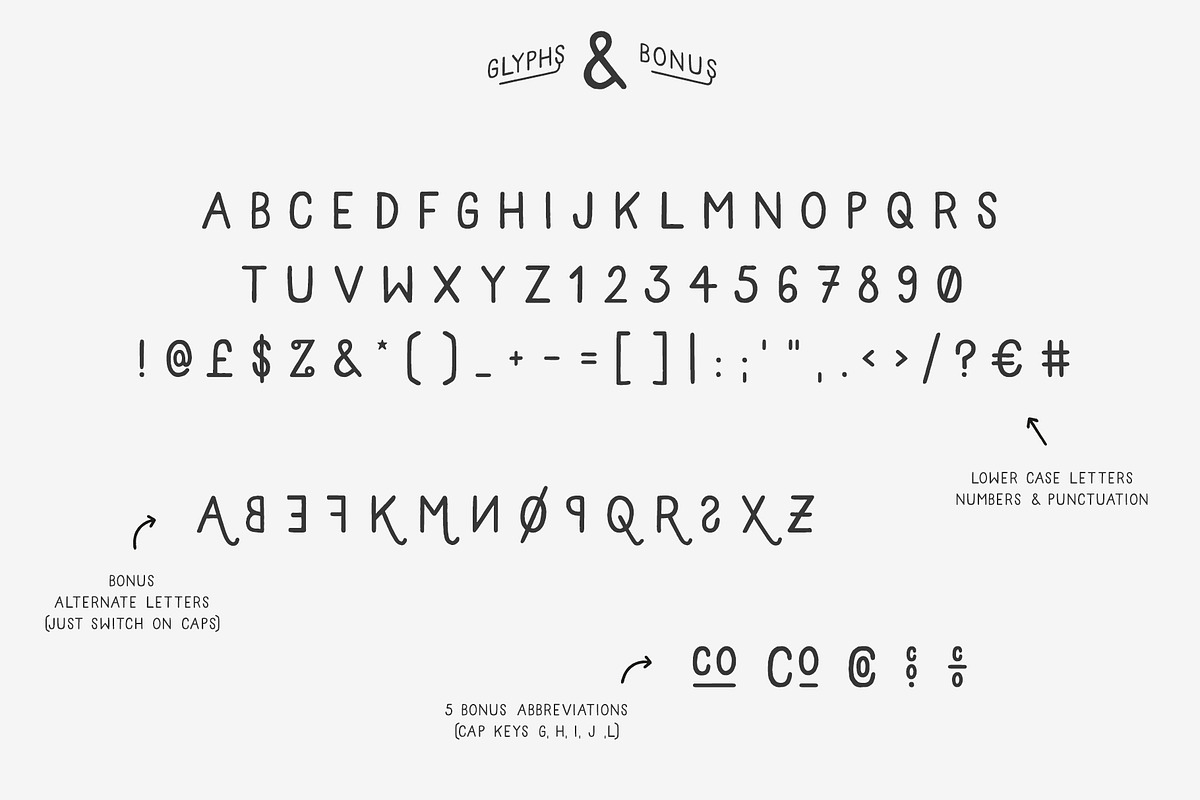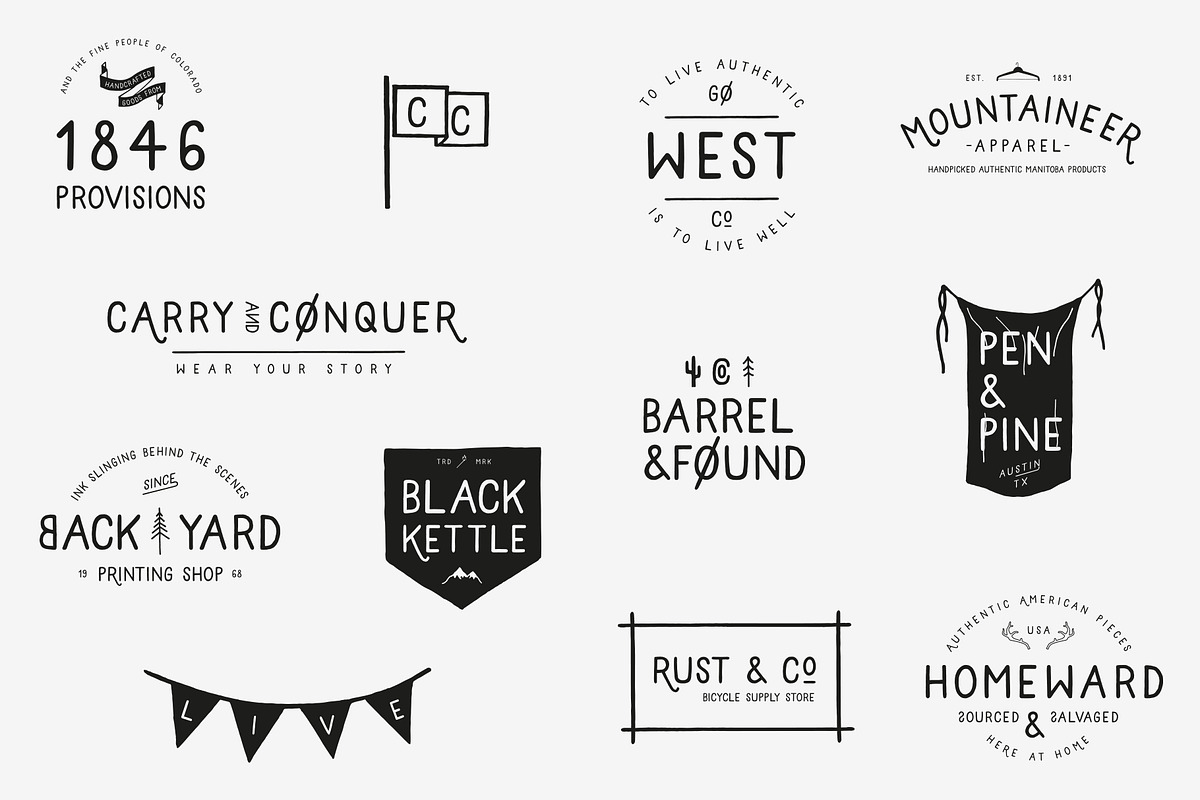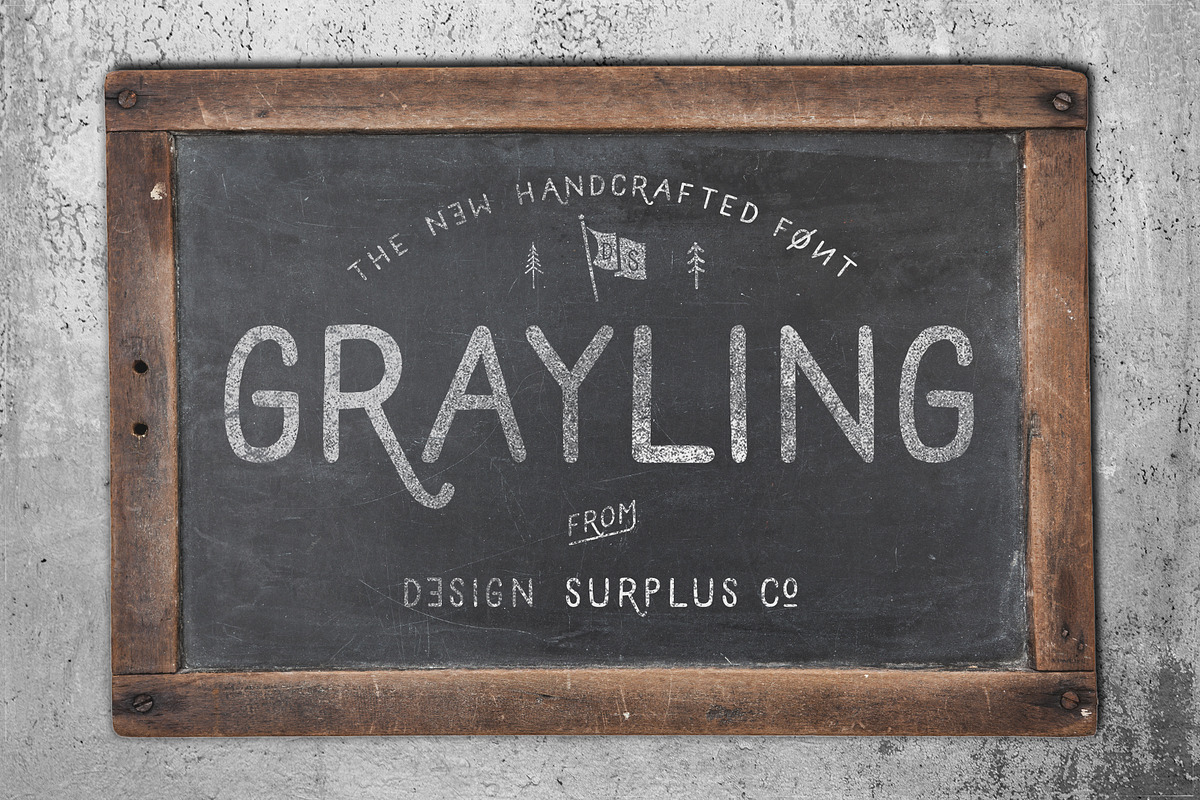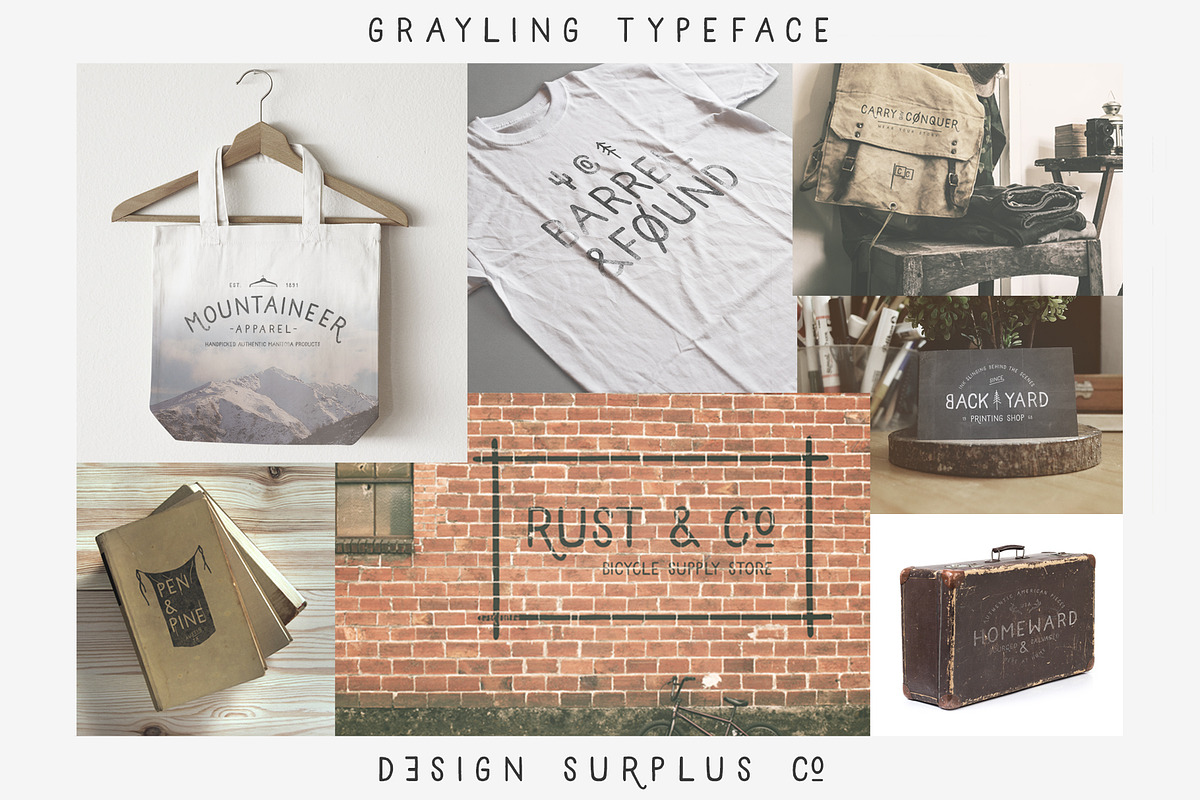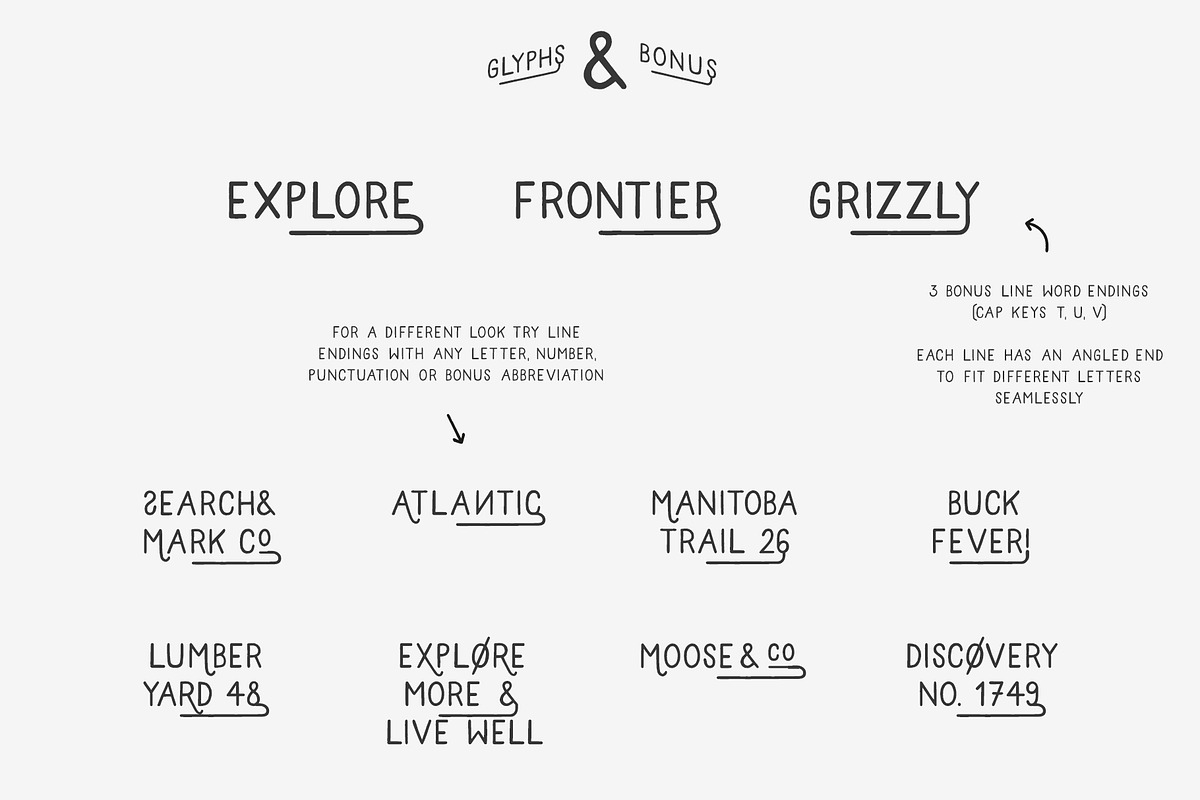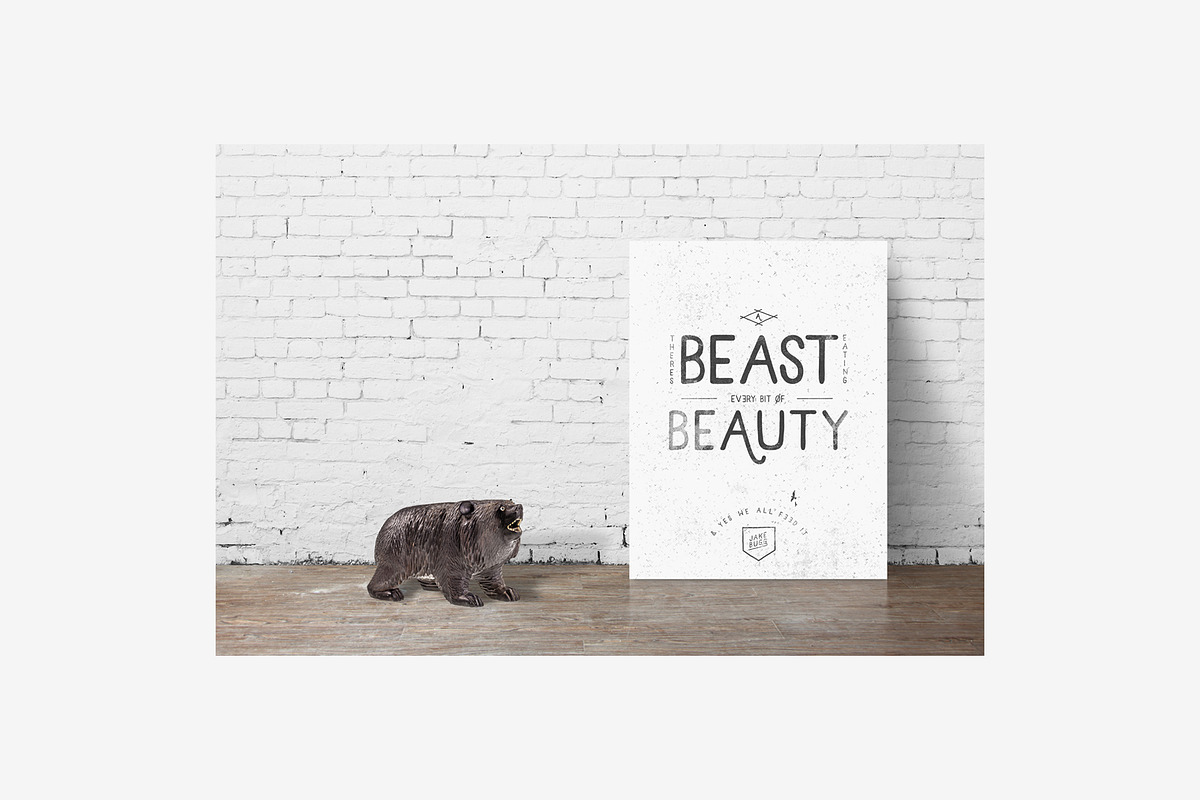
Grayling Font
Grayling Font by Design Surplus is a font selected for branding, posters, packaging, typography.
- Check out the 12 BONUS logos and 60 icons included with Grayling.
- So I created a range of alternate letters, company abbreviations and some cool lines to finish off your wording.
Why Grayling Font is worth a look
Grayling Font by Design Surplus fits naturally into Branding, posters, packaging, typography.